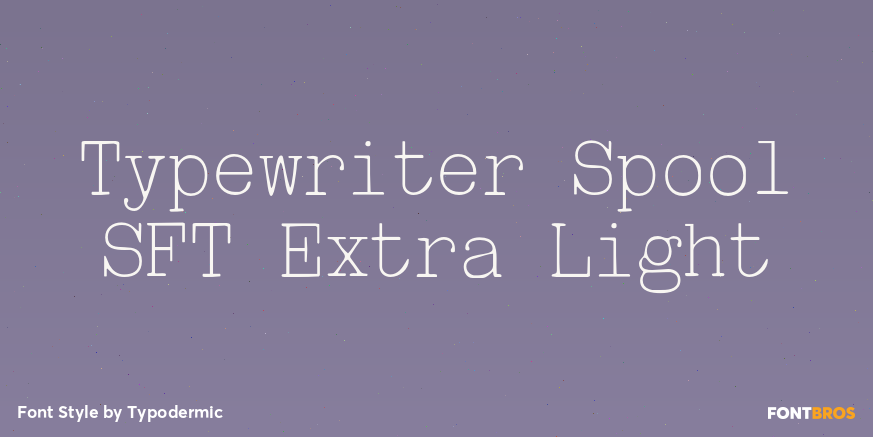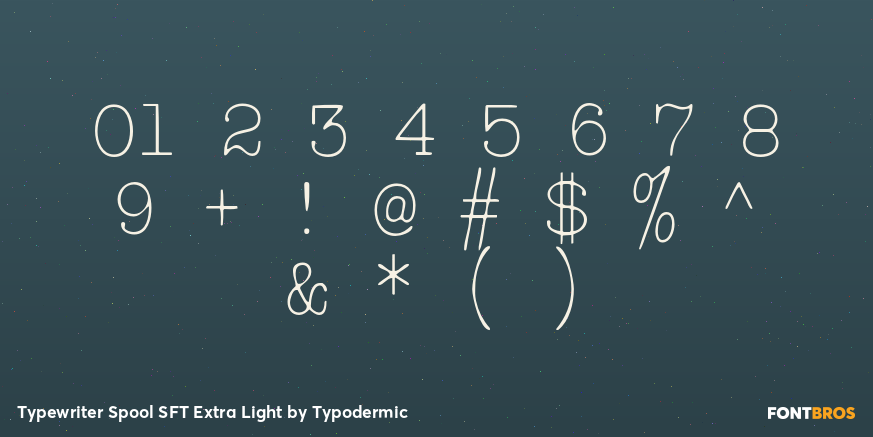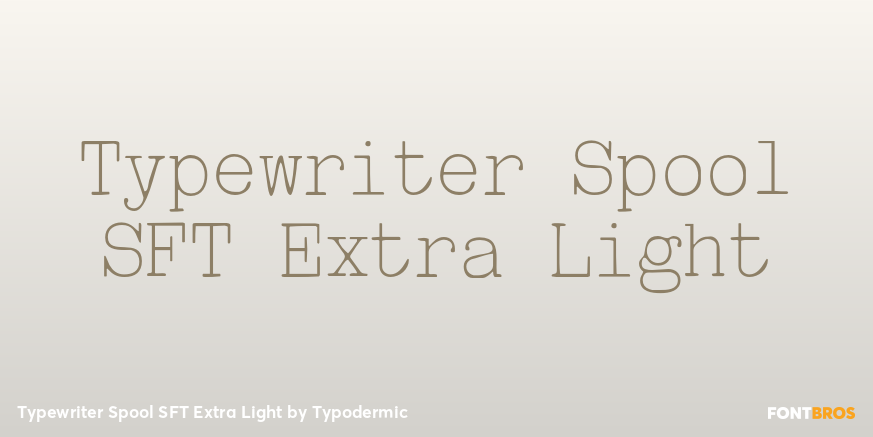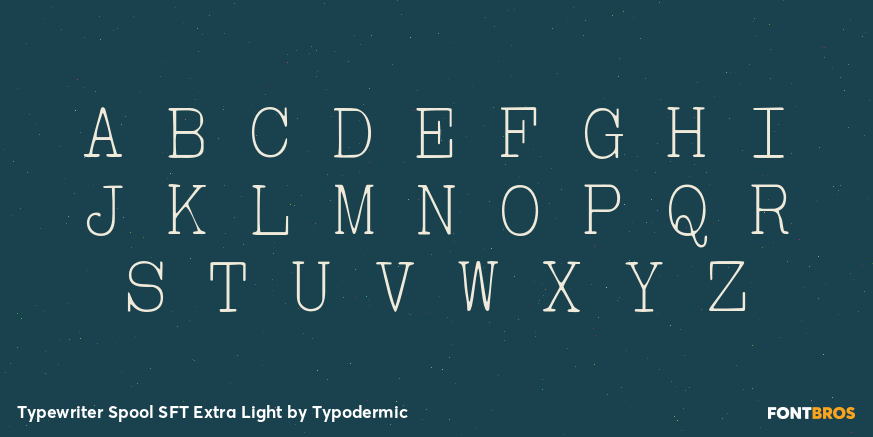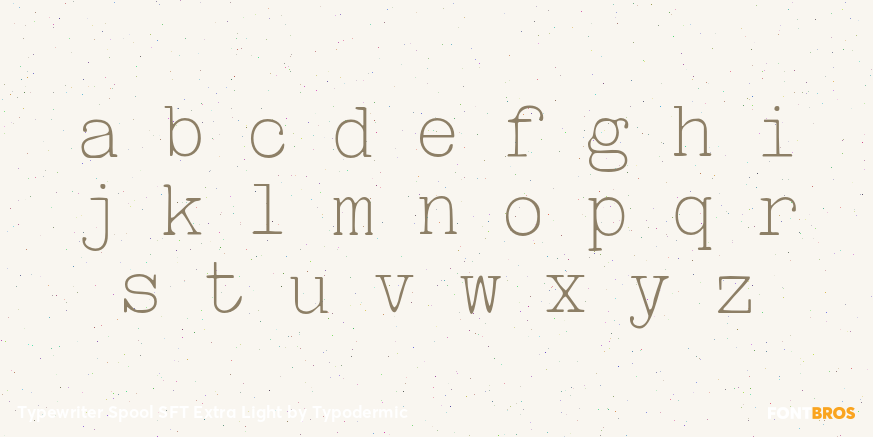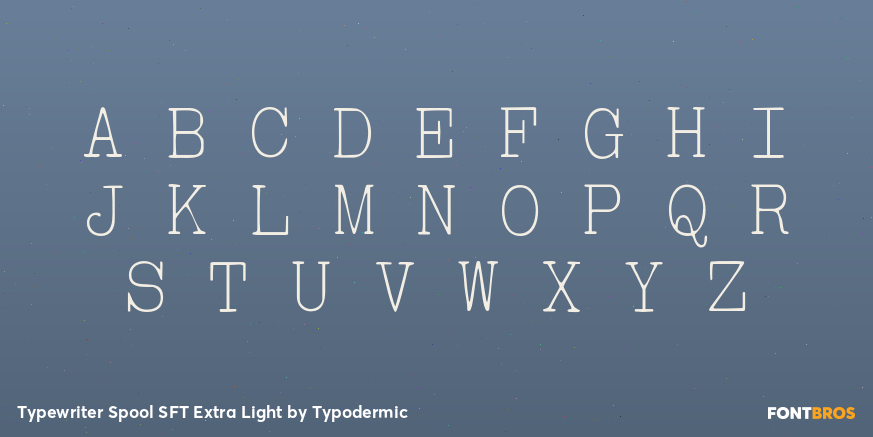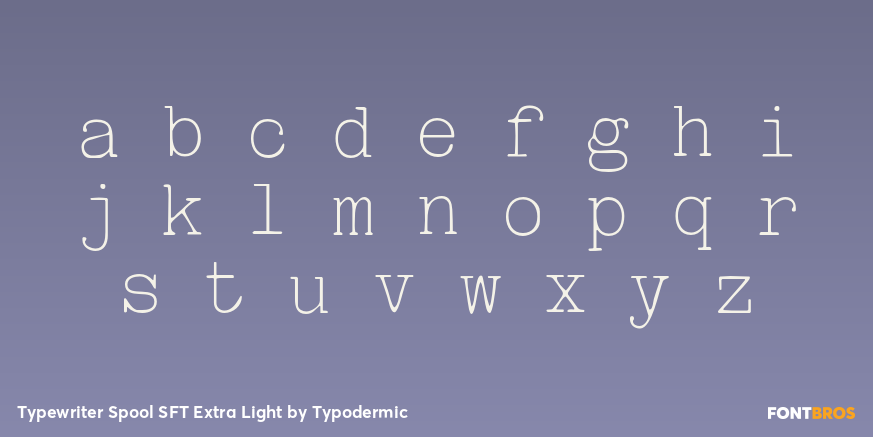
Typewriter Spool SFT Extra Light
Typewriter Spool SFT introduces restrained mechanical irregularity while keeping the document clear and usable. Slight variations in the impressions soften CLN’s controlled surface without pushing the text into obvious photocopy damage or a severely worn ribbon. The same condition carries consistently across its weights, widths, and italics.
Use SFT for personal letters, office memoranda, interview transcripts, working drafts, file labels, lightly handled records, and heritage packaging that should feel typed rather than typeset. It works especially well when a prop or exhibition needs believable age and human use while every word still has to remain comfortably readable.